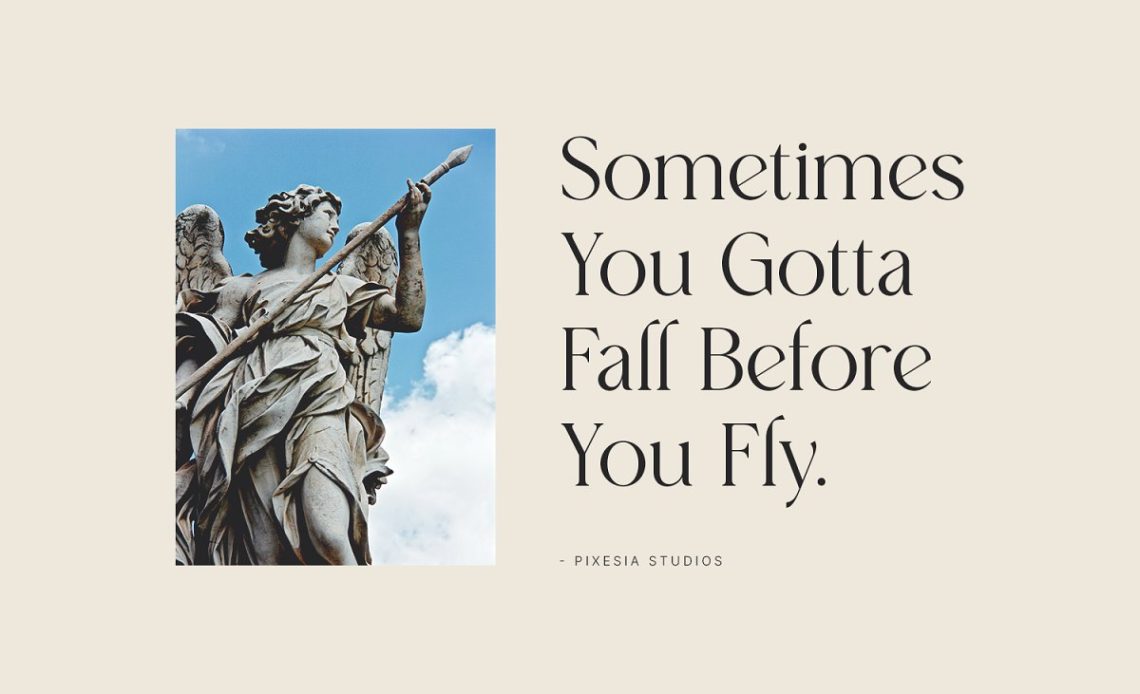
Introducing Westiga – a Modern & Luxury Serif Font
Westiga is a modern and luxury serif typeface designed with beautifulcrafted characters that follow the trend. It can be used for adding a unique touch to logos, heading, branding business, magazines, product packagin, invitation, monograms, merchandise, poster book title, movie title or pull quotes and so much more.
FEATURES
– Stylistic Alternates
– Ligatures
– PUA Encoded
– Uppercase and Lowercase letters
– Numbering and Punctuations
– Multilingual Support